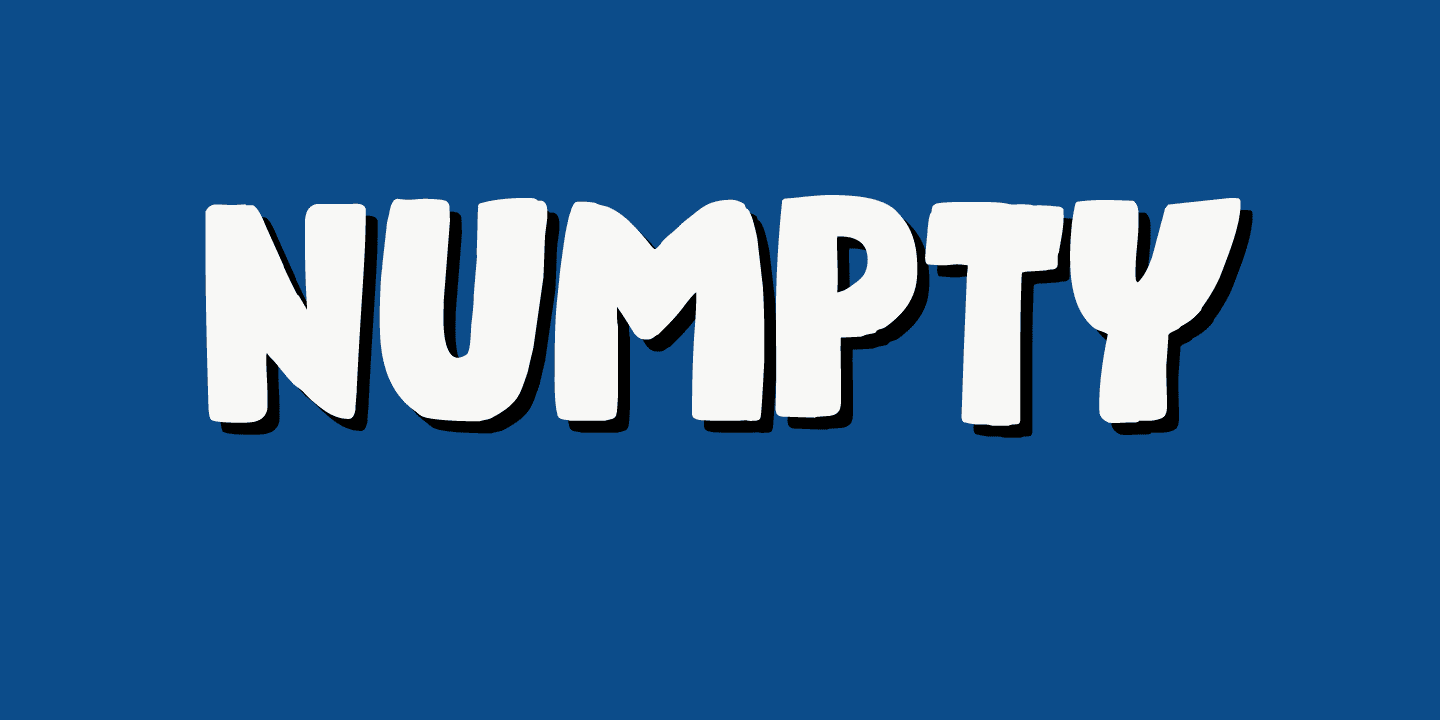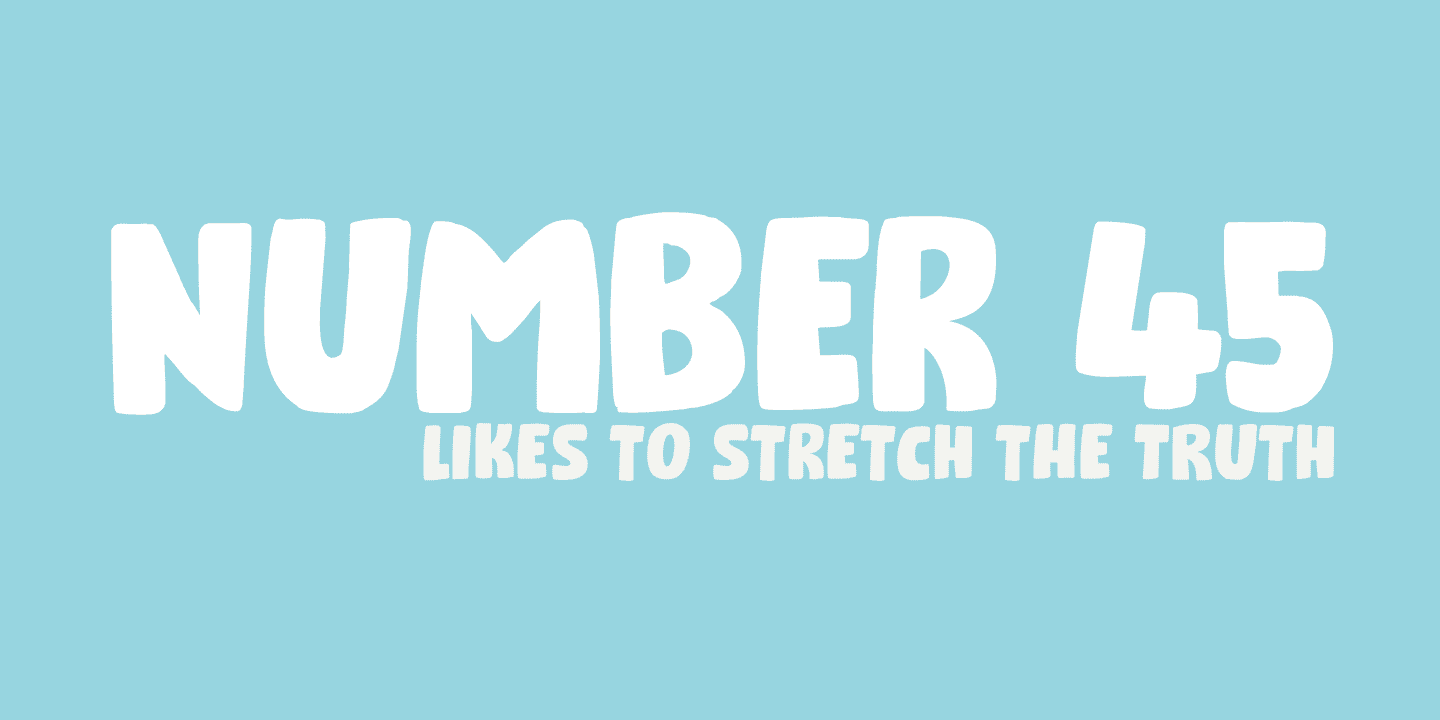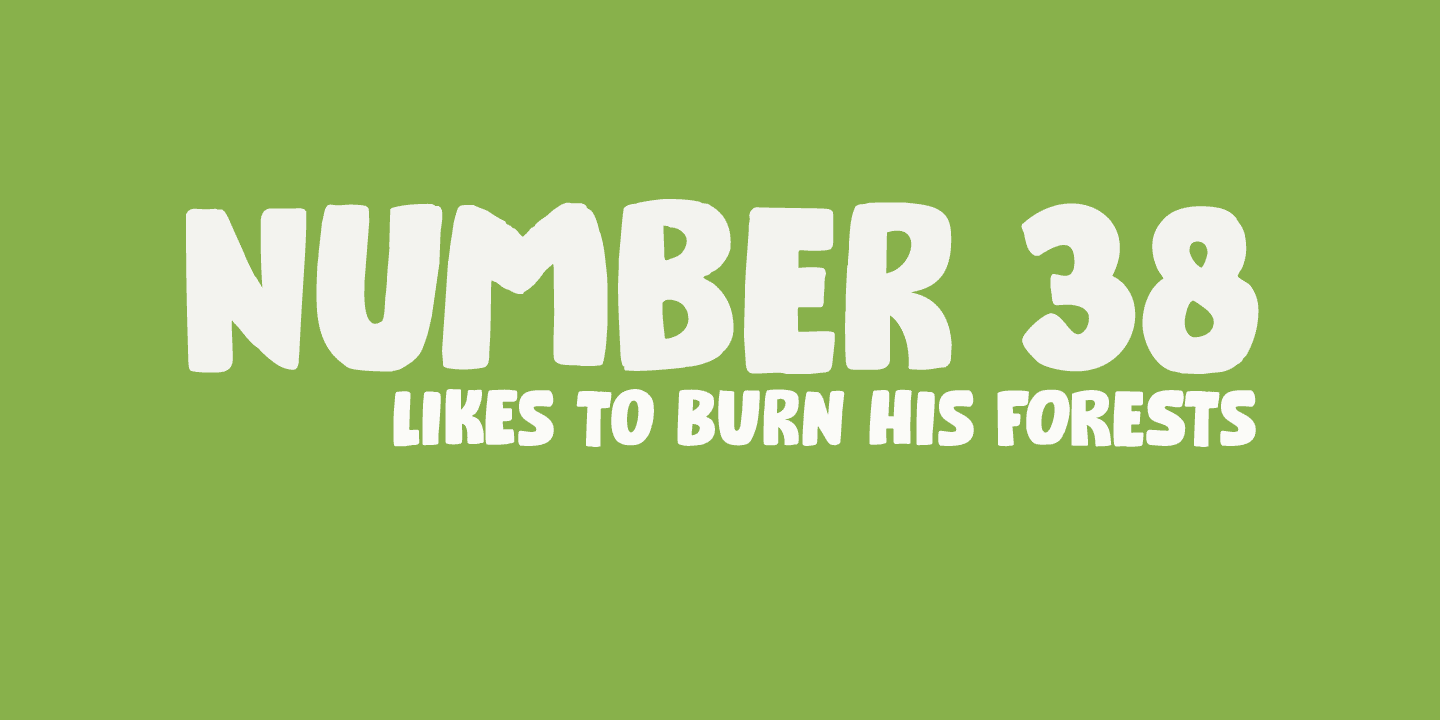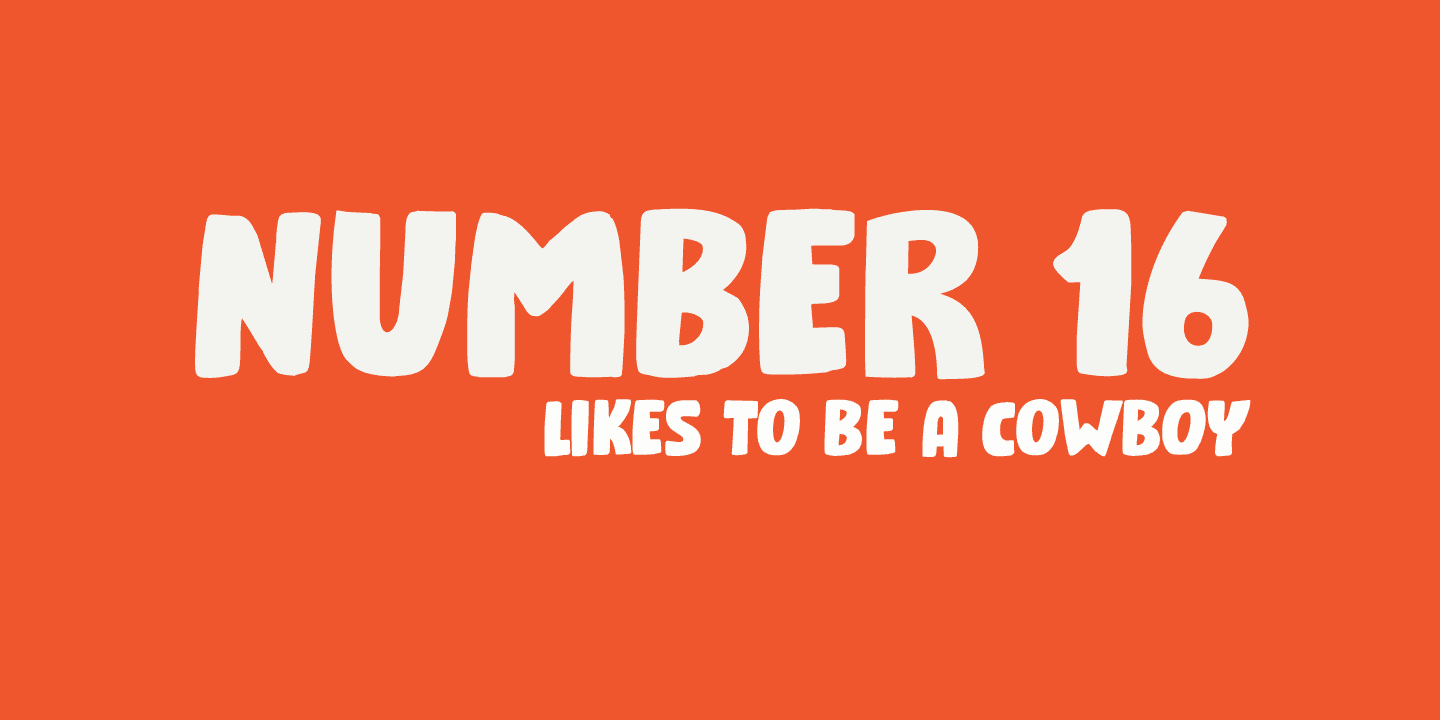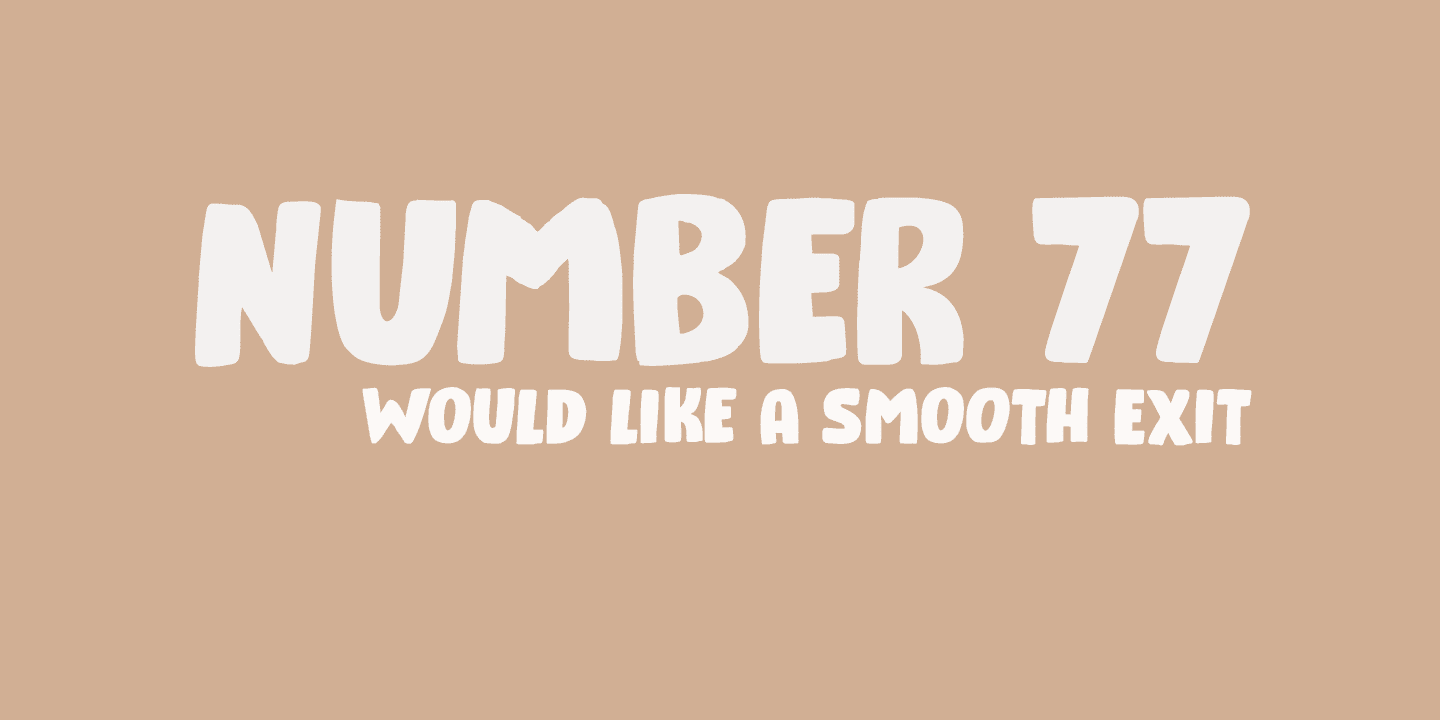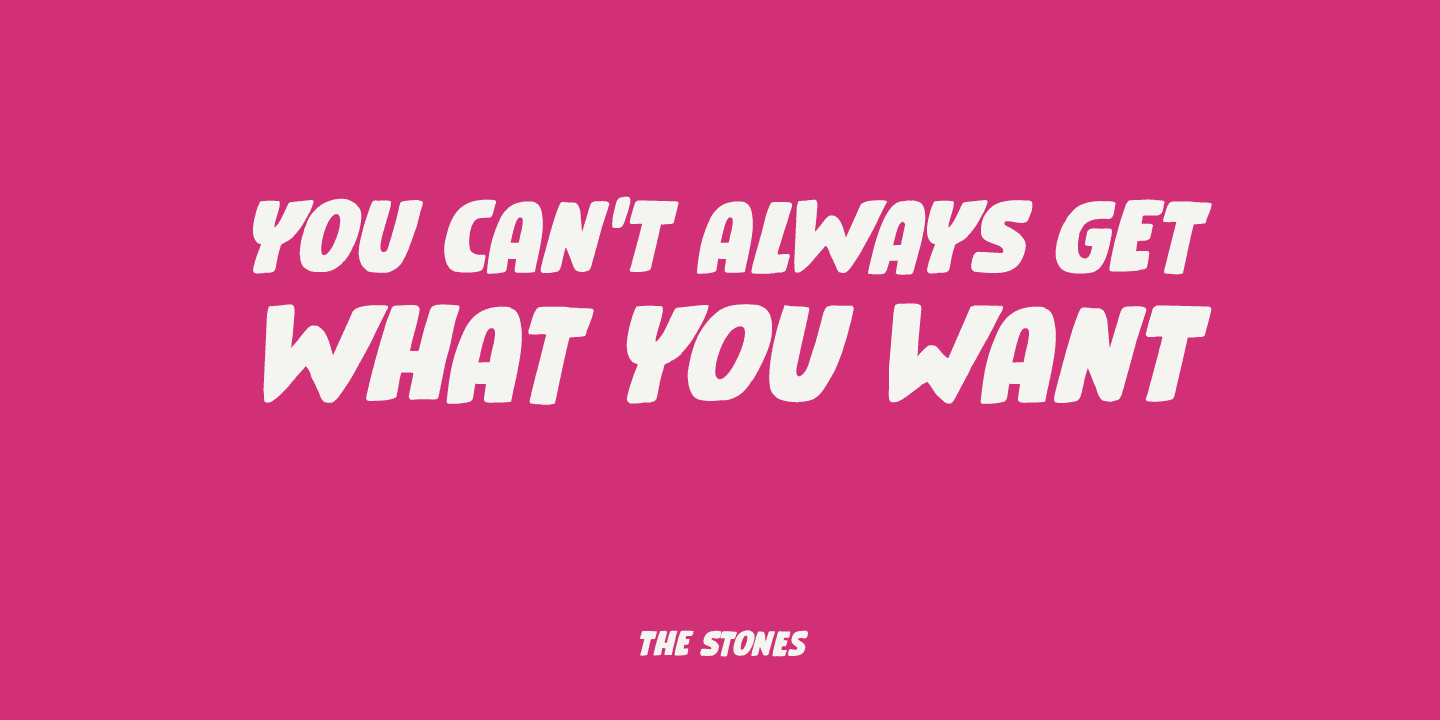
Numpty is a word of Scottish origin and means ‘someone who, by speech or action, demonstrates a lack of knowledge’. I use this word quite often (as this world, unfortunately, seems to be full of numpties). And guess what? Now you know what it means, you can use it too! Hooray!
Numpty is a fat, rounded display font. A little uneven, a little weird, but with enough panache to make your designs stand out.